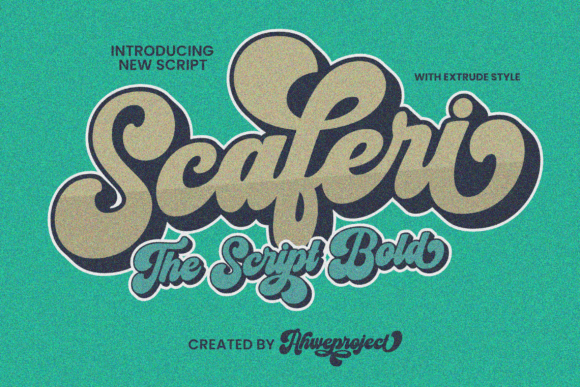
Journey into the past with Scaferi Font, a captivating retro-style script display font that breathes life into your creative visions. Step back in time with its playful strokes and elegant curves, reminiscing about the golden age of design. Scaferi Font is a gateway to nostalgia, an enchanting fusion of vintage charm and contemporary flair.
With Scaferi Font, you hold the key to unlocking a world of visual appeal, making your designs shine with a distinctive retro touch. Let your creativity soar as you adorn your posters, stickers, apparel, and social media posts with Scaferi Font's timeless beauty. Watch as your audience falls under its spell, captivated by the allure of a bygone era.
Express your individuality and ignite your passion for design with Scaferi Font. Explore a world of possibilities, where the past meets the present in perfect harmony. Elevate your designs to new heights, leaving an unforgettable mark on your audience's hearts. Scaferi Font is more than just a font; it's a journey through time, a celebration of creativity, and an embodiment of pure enchantment.
Unleash the power of Scaferi Font and witness the transformation of your designs. Whether you're a seasoned designer or just starting, Scaferi Font is your passport to creating captivating masterpieces that resonate with your audience. Embrace the magic of Scaferi Font and let your designs speak volumes, leaving a lasting impression on all who behold them.
Dive into the world of Scaferi Font today and embark on a creative odyssey that blends the allure of the past with the brilliance of the present. Experience the joy of designing with Scaferi Font, where every stroke tells a story and every letter exudes character. Let Scaferi Font be your creative companion, guiding you to design greatness. Your journey starts now!